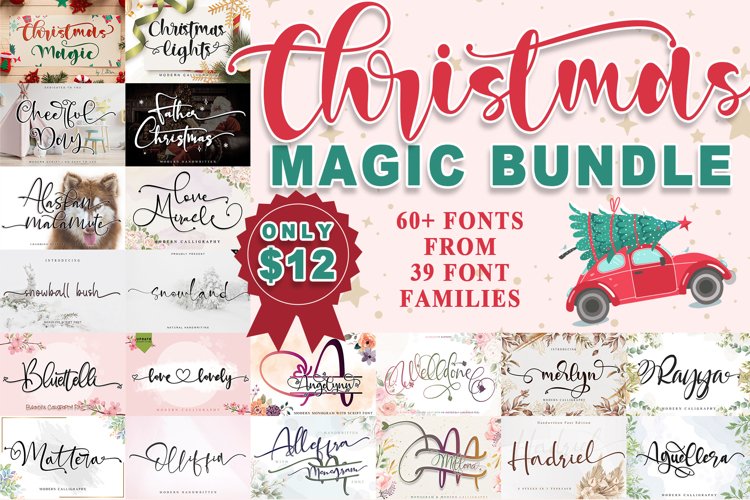
SUMMER MEGA BUNDLE
The bundle contains 60+ fonts from 39 font families. This is a collection of some of my fonts in the Font Bundle store that I sell in one package at a special price. Normal price more than $700 special price is $12 !!! This font bundle includes a varied range of font styles such as calligraphy, signature, script, fun, display and more.
This font is ideal for Spring, Easter moments, crafting, branding, and decorate your any project. These fonts are perfect for wedding invitations or your blog. Also with their help, you can create a logo or beautiful frame for your home. Or just use it for your business, book covers, stationery, marketing, magazines, and more.